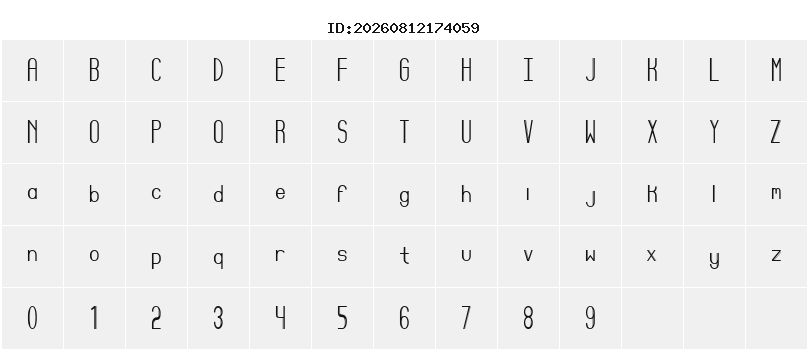
• Font Name: Reyes
• Full Font Name: Reyes
• PostScript Name: Reyes
• Designer: Jan P. Burgos Reyes
• Manufacturer: Jan P. Burgos
About Reyes.ttf
Reyes.ttf is a modern, elegant sans-serif font designed for ultimate readability and visual harmony. Perfect for branding, headlines, web design, and print materials.